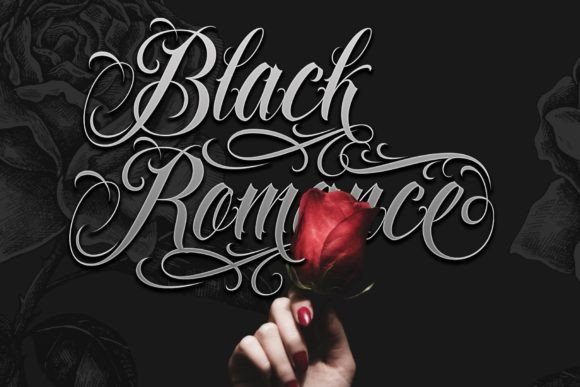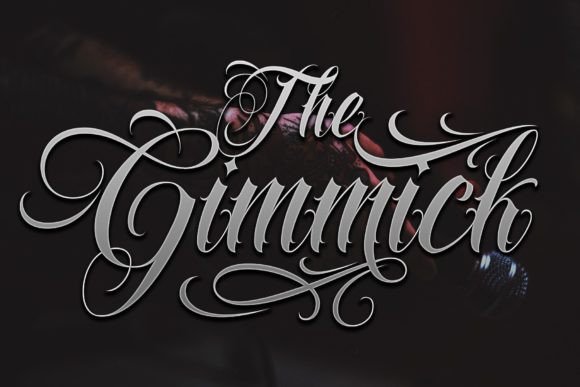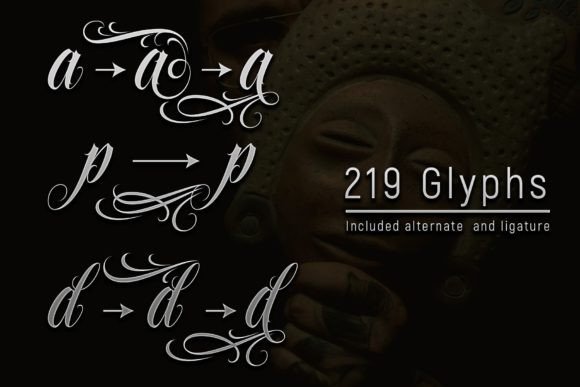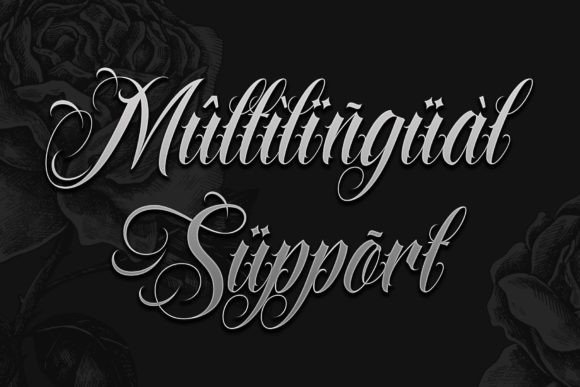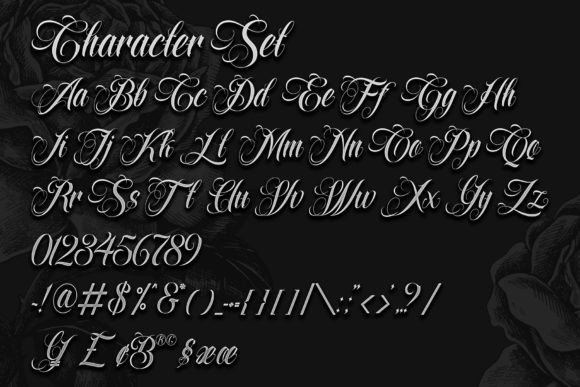
Give Your Designs an Edge with the Angelicha Font
There’s nothing quite like the rush of inspiration that hits when you’re working on a new project. You’re scrolling through your favorite design communities, sipping coffee, and suddenly, a font catches your eye. For many designers, this moment is a turning point that sets the tone for the entire project. And for those who’ve been searching for the perfect font to add an edgy touch, we’re excited to introduce you to the Angelicha Font.
This contemporary blackletter tattoo font is a game-changer for designers looking to add a touch of sophistication and rebelliousness to their projects. Whether you’re creating logos, t-shirt designs, posters, flyers, or other brand identity items, the Angelicha Font is sure to elevate your work. Its versatility and unique style make it a valuable addition to any designer’s toolkit.
Angelicha Font Key Features
- Font Family: Angelicha is a unique, elegant script font.
- Unique Characteristics: This font features intricate connections between letters, creating a sense of fluidity and elegance.
Angelicha Font Review
Overall, I was pleasantly surprised by the Angelicha Font. Here are a few things that I think work well:
- ✨ Elegant and sophisticated design: The font has a classic, high-end feel to it that’s perfect for luxury brands or high-end projects.
- ✨ Beautiful script connections: The connected script letters are some of my favorites – they add a touch of sophistication and make the font feel more premium.
- ✨ Wide character set: The font includes a wide range of characters, including accents and special characters, which makes it a great option for global projects.
However, I did encounter a few limitations:
- ⚠️ Limited font weights: The font only comes in a few weights, which may limit its versatility in certain projects.
- ⚠️ Not ideal for body text: The font is best suited for headings and titles, as the letterforms can be a bit too ornate for large blocks of body text.
Overall, I think the Angelicha Font is a great option for designers looking to add a touch of elegance and sophistication to their projects. While it may have some limitations, I think it’s a great choice for the right project.
Tips for Getting the Most Out of Angelicha Font
To get the most out of the Angelicha Font, use it in combination with bold or italic styles to create emphasis. You can also pair it with other fonts to create a unique and eye-catching design. Experiment with different font sizes and colors to add visual interest to your design.
The Angelicha Font is commonly used in invitations, greeting cards, and other creative projects where a elegant and sophisticated look is desired. It’s also a great choice for wedding stationery, baby shower invitations, and other special occasion designs.